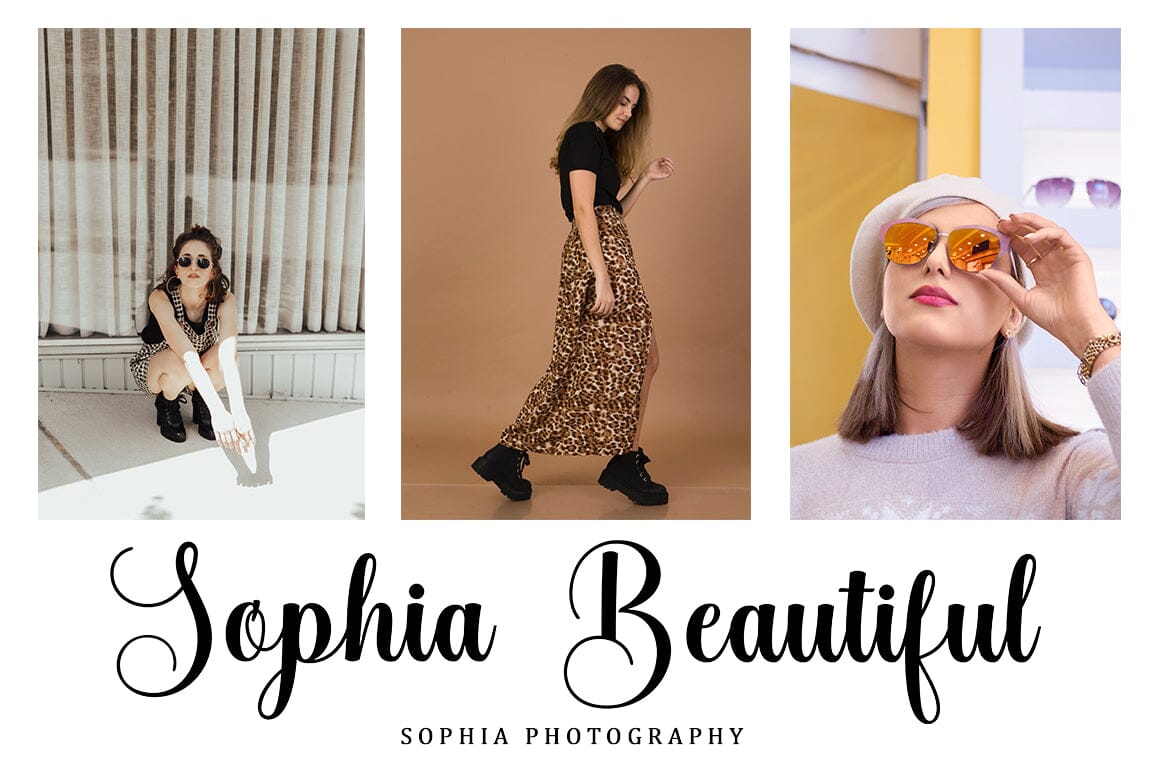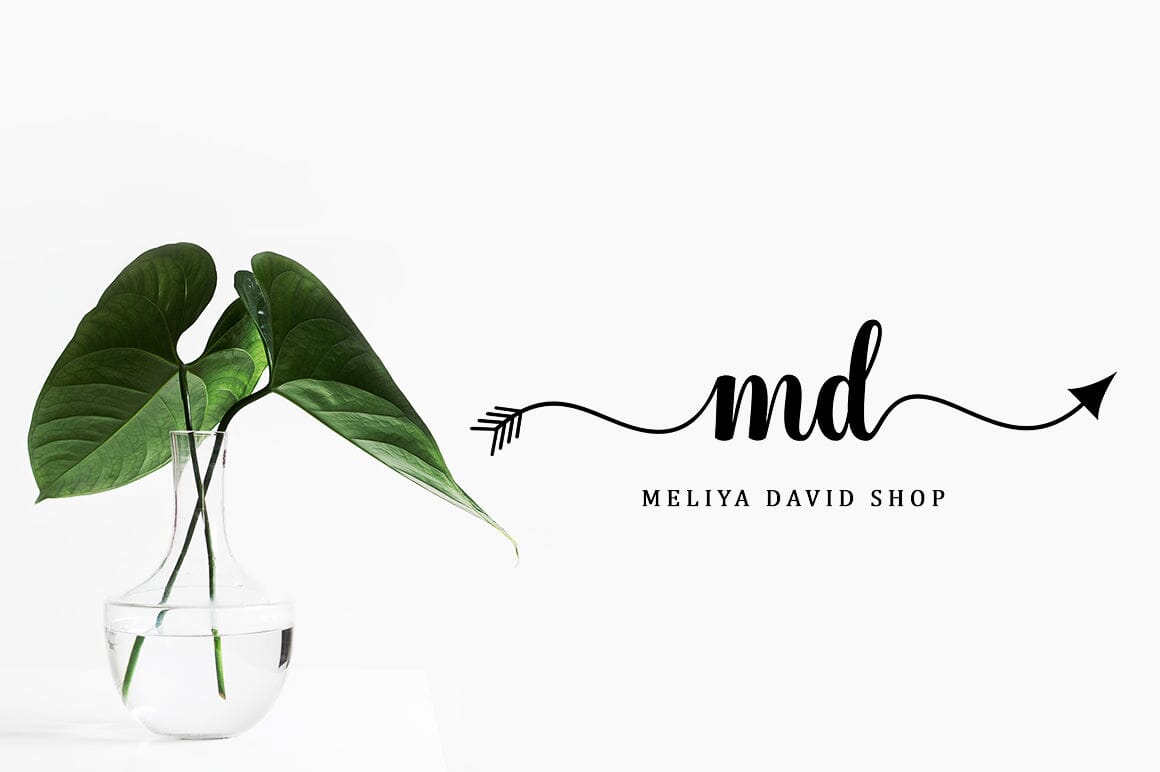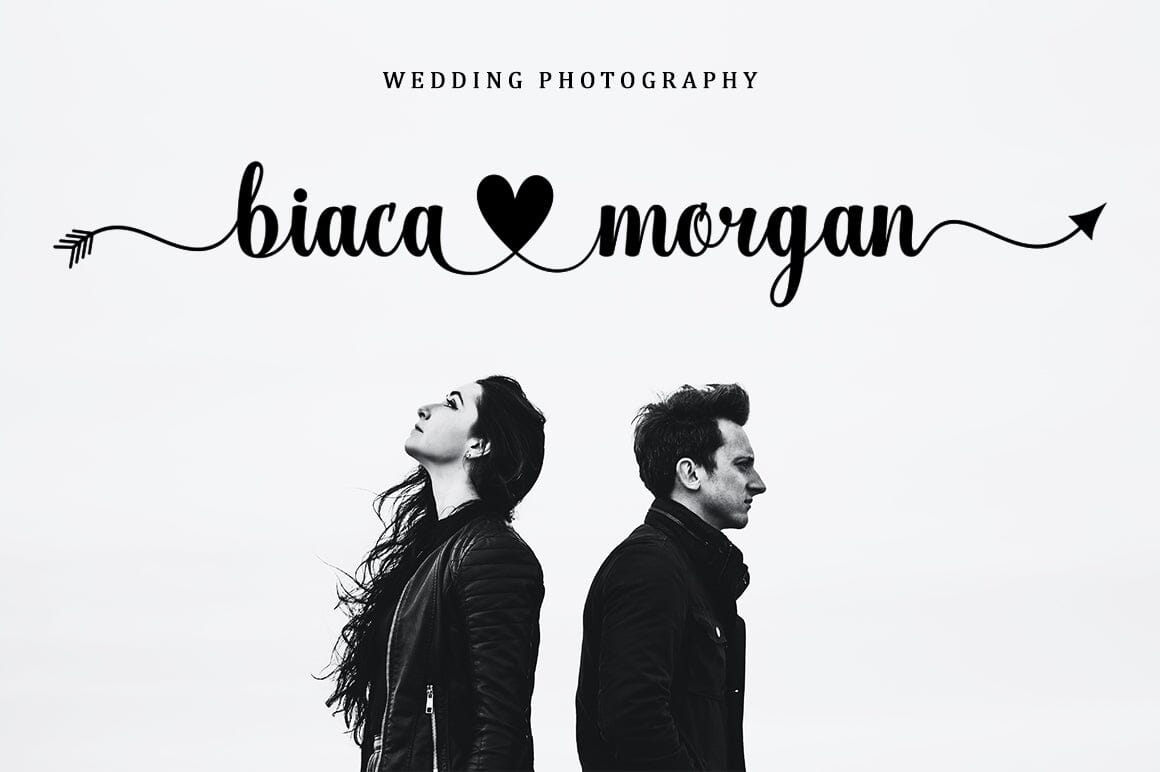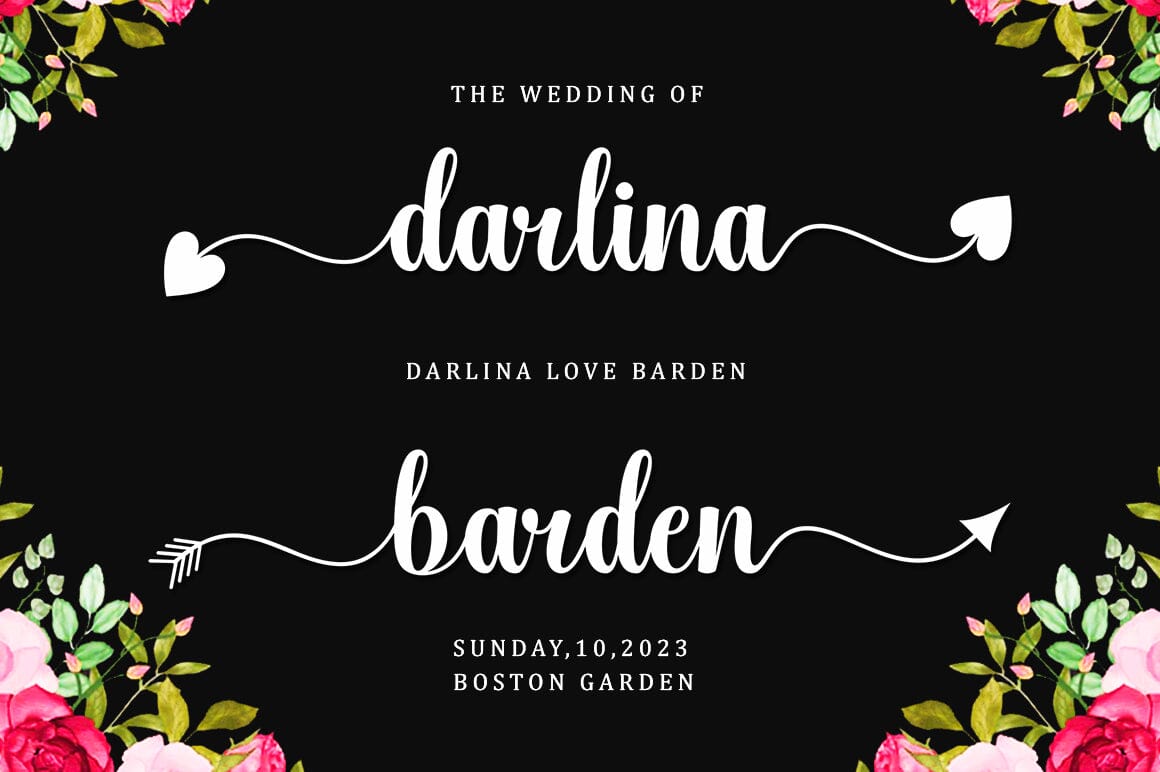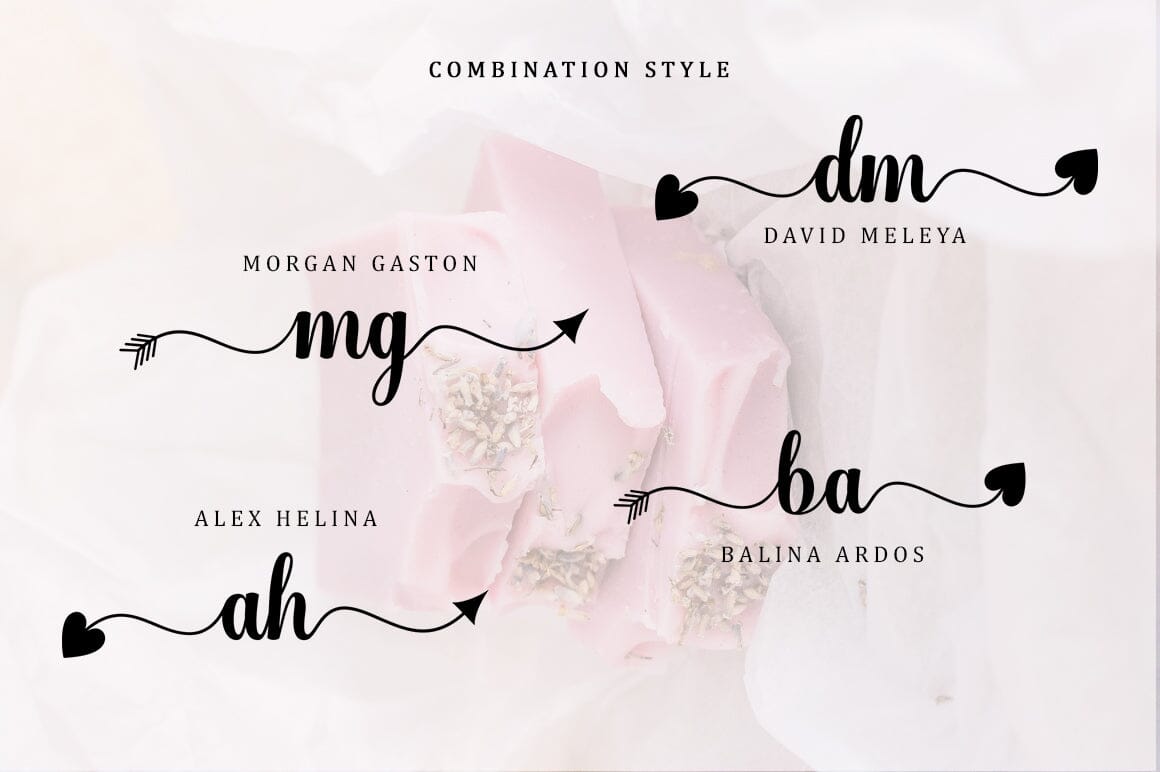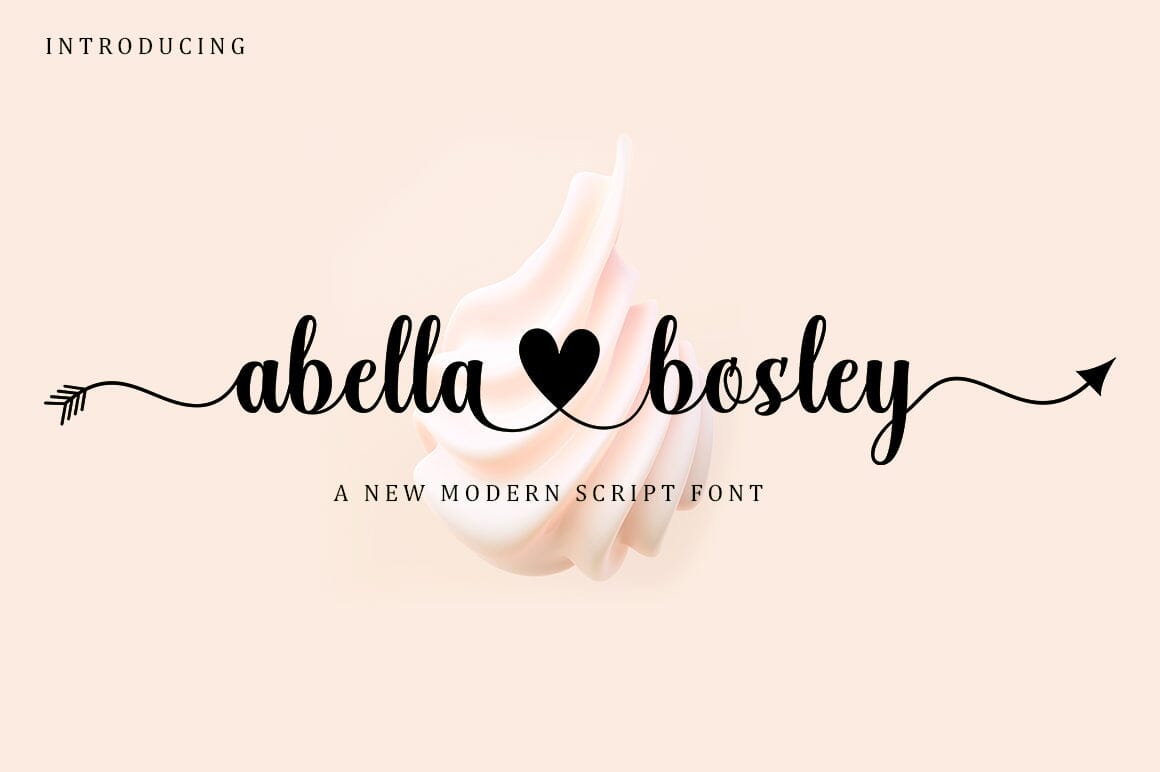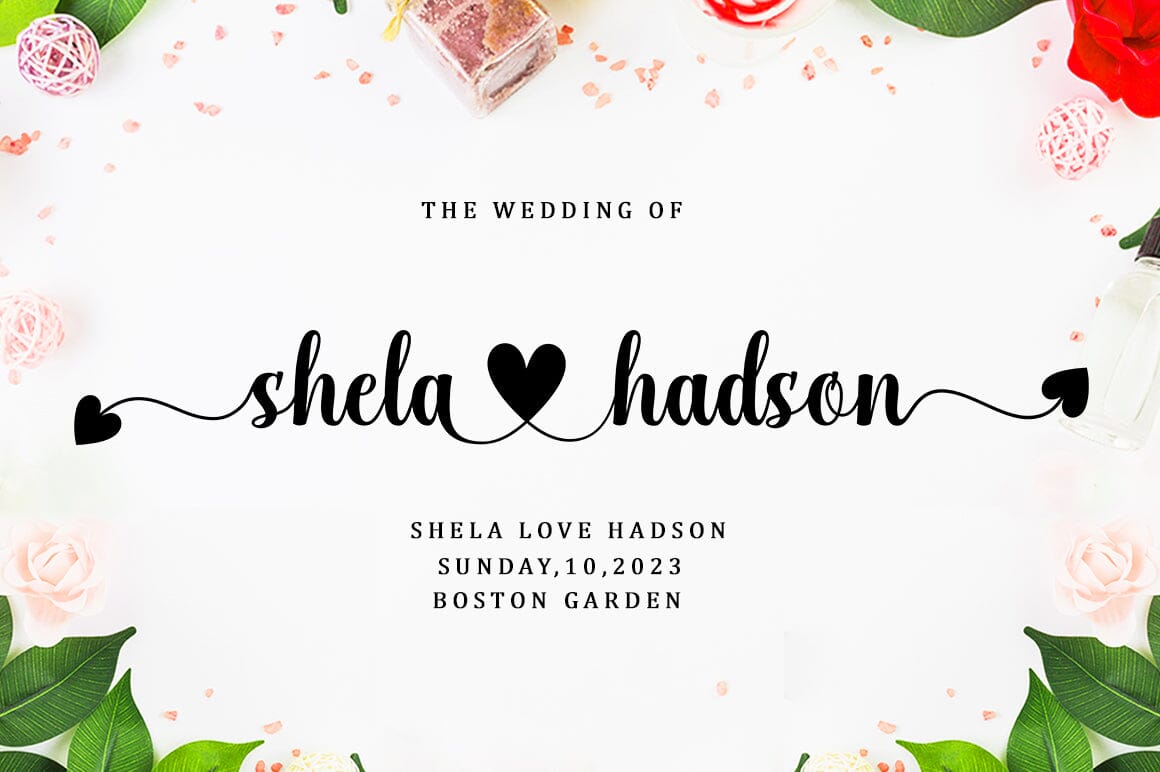
Abella Bosley
About Abella Bosley
bella Bosley is a beautiful script that’s perfect for branding, wedding invitations, and other romantic projects. This love-centered look makes it perfect for use in all your design projects be it logos, labels, packaging designs, blog titles, posters, wedding designs, social media posts, Instagram designs, etc. You will get : 2 types fonts: Regular, Slant Contains full set: -Uppercase -Lowercase -Alternative -Ligature -Punctuation -Number -Multilingual support. I hope you enjoy this font. If you have any questions, feel free to message me.